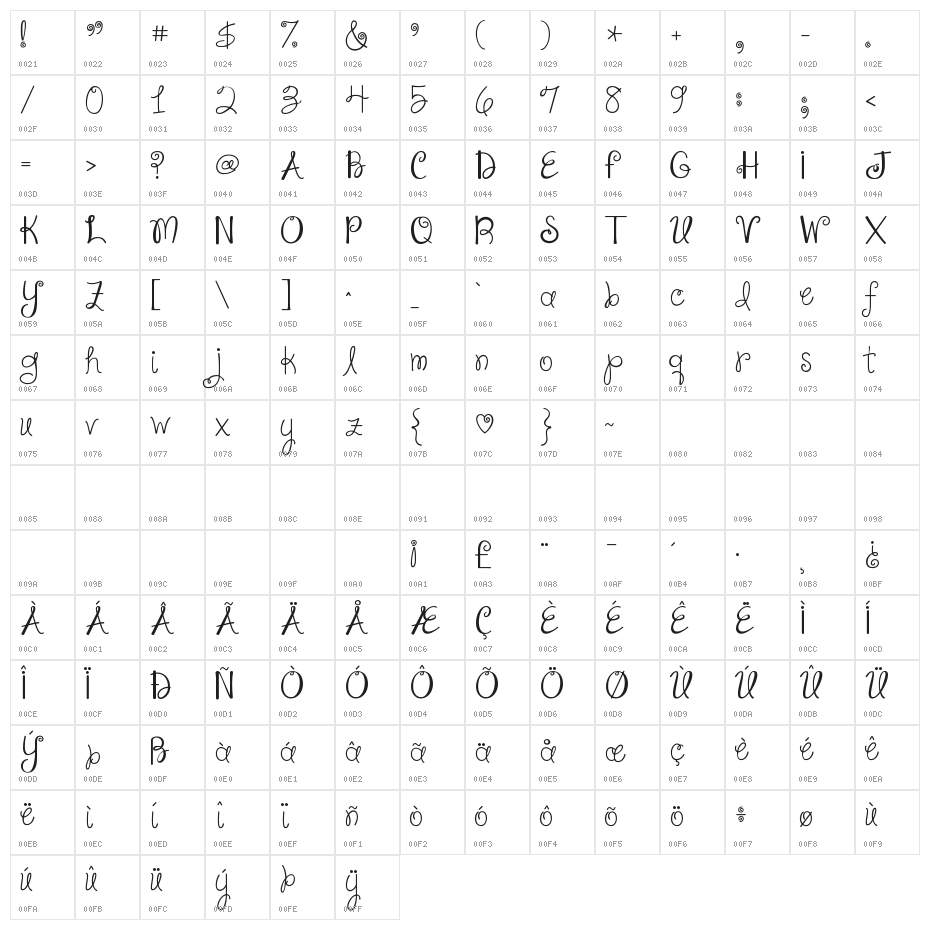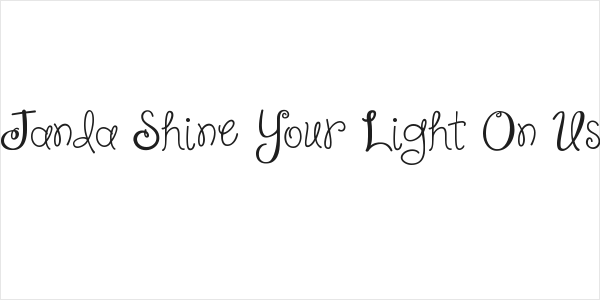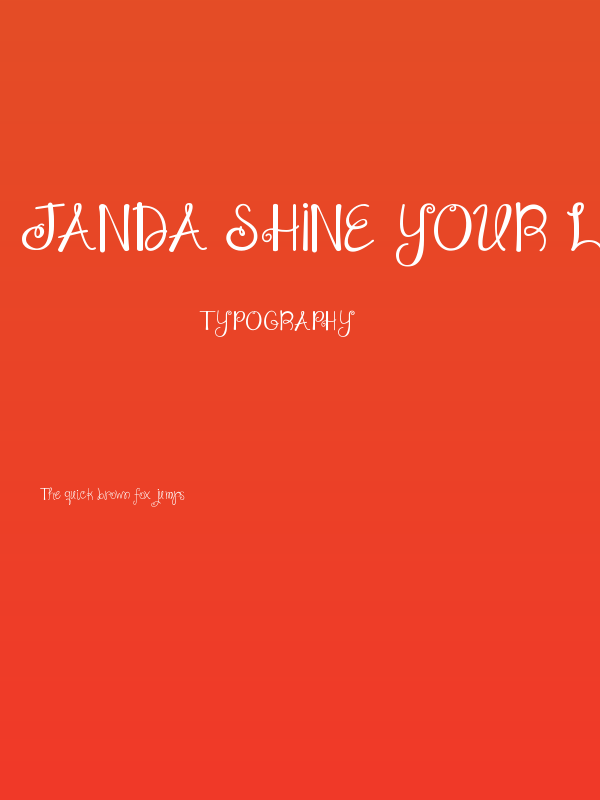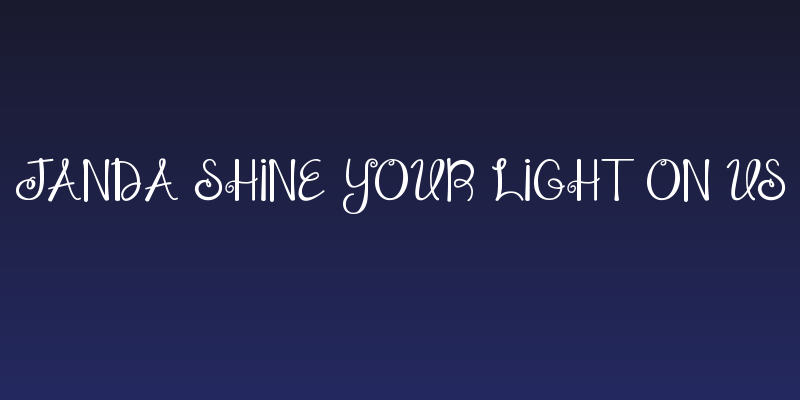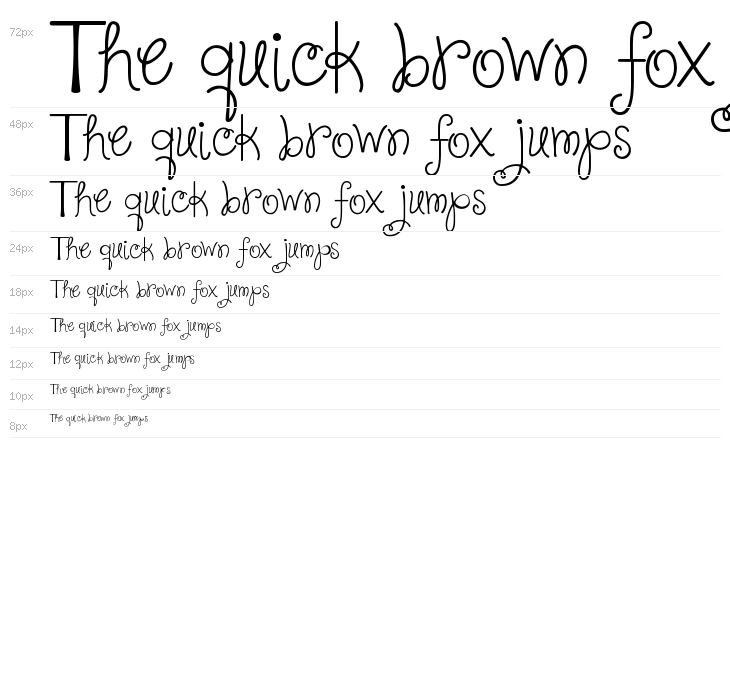
Janda Shine Your Light On Us Font
Janda Shine Your Light On Us Description
This whimsical and playful font features a handwritten style with a touch of elegance. Each character is uniquely crafted with swirls and curls, giving it a lively and dynamic appearance. The uppercase letters are bold and expressive, while the lowercase letters maintain a consistent flow with charming loops. Numbers and special characters are equally adorned with decorative elements, enhancing the font's overall artistic flair. The font's design is perfect for projects that require a personal and creative touch, making it ideal for invitations, greeting cards, and playful branding.
| Proposed Projects | Ideal for invitations, greeting cards, playful branding, and creative projects. |